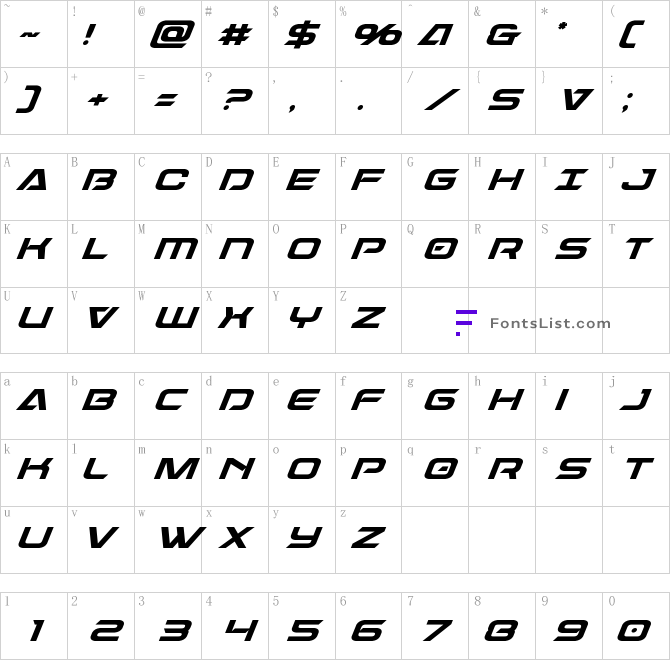
- Font Name:Dameron Super-Italic
Dameron-Super-Italic.ttf is a very beautiful artistic font, Dameron-Super-Italic.ttf is widely used in the design and printing of various books and pictures,Dameron-Super-Italic.ttf has a strong visual impact,Dameron-Super-Italic.ttf is a commonly used font in newspapers, magazines and books, and is used in posters, e-commerce Poster design, store design, logo design, font design and other fields.Dameron-Super-Italic.